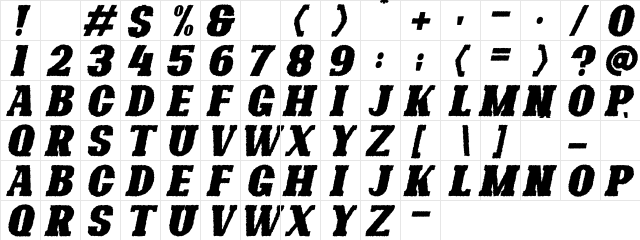
Bonaro Rough Italic Demo Rough Italic
| Designer | Sabrcreative Studio |
Design Context for Bonaro Rough Italic Demo Typeface
Bonaro Rough Italic Demo embraces imperfection — its rough, textured character adds raw authenticity to designs that want to feel lived-in and unconventional. Its italic angle brings a sense of urgency and motion to the letterforms.
A strong fit for alternative music projects, graffiti-adjacent design, and anything that deliberately resists polish.
Pro Tip: Use Bonaro Rough Italic Demo at larger sizes where the texture and irregularity of each letterform can be clearly seen — it loses its character at small sizes.